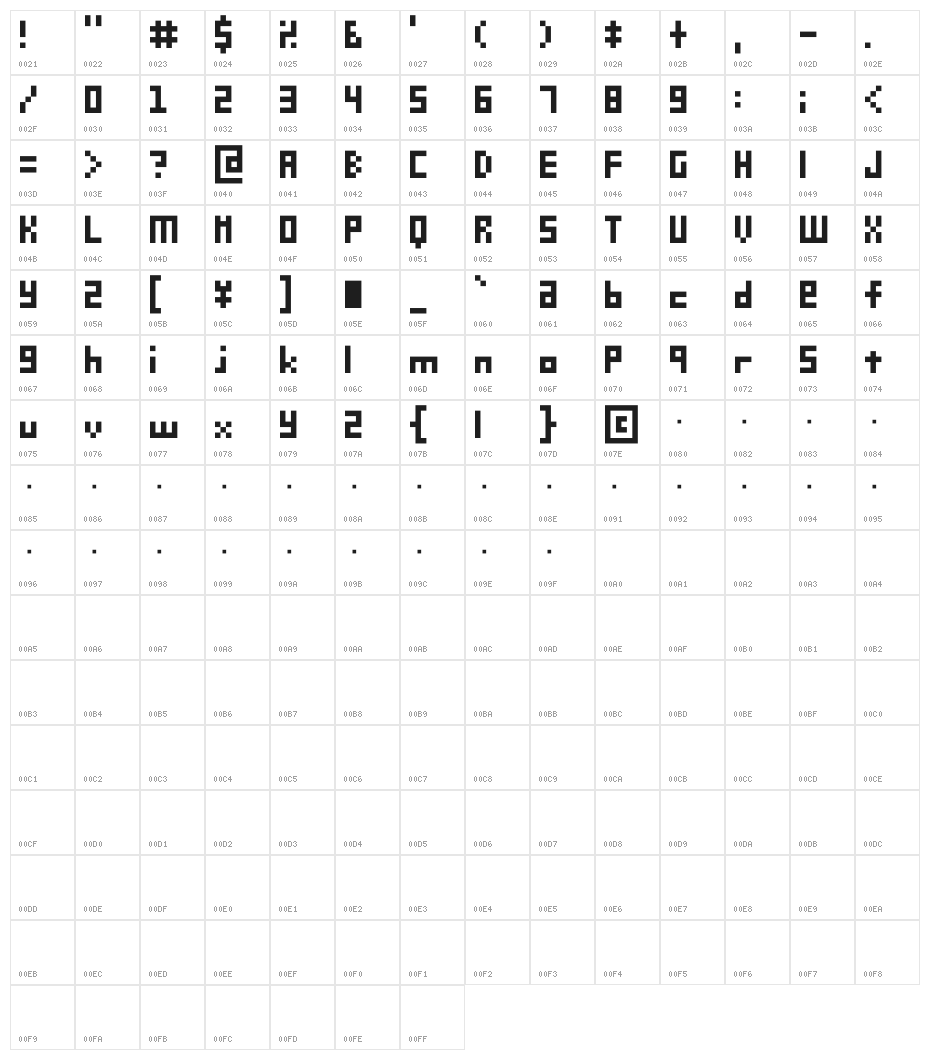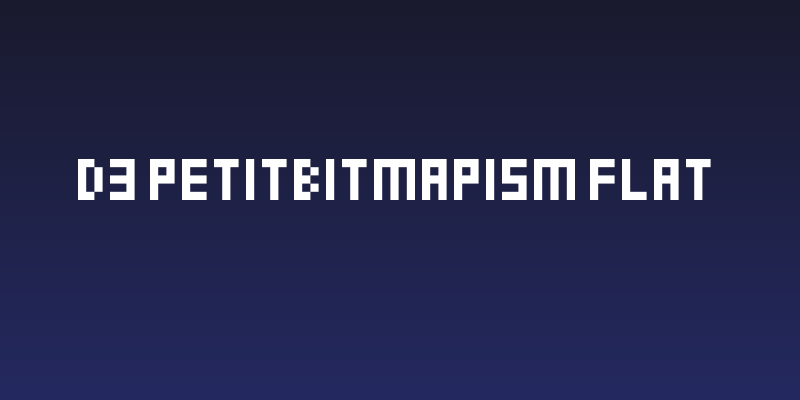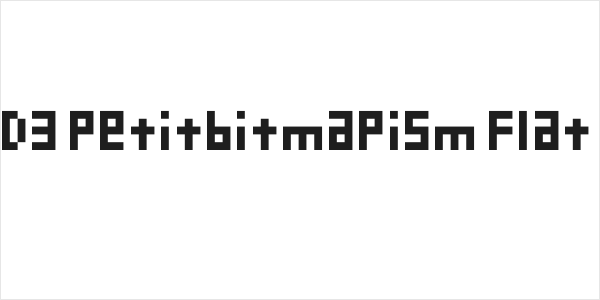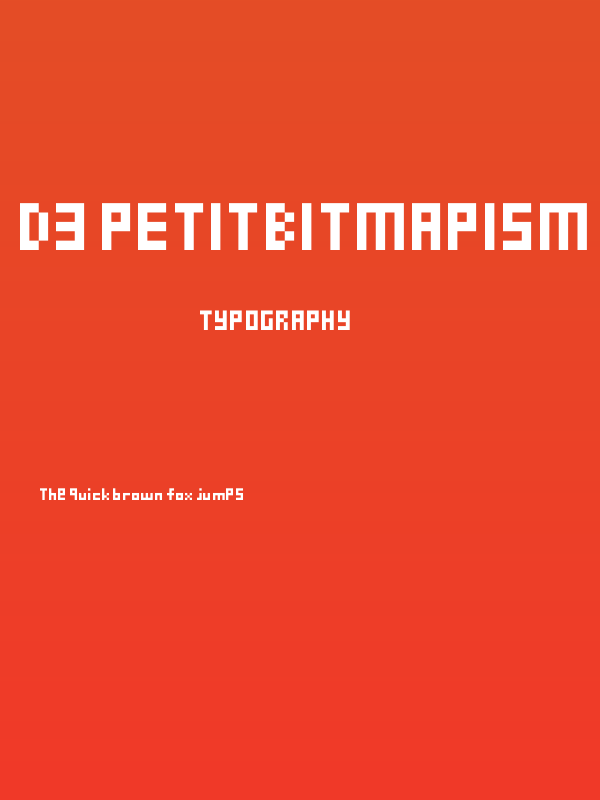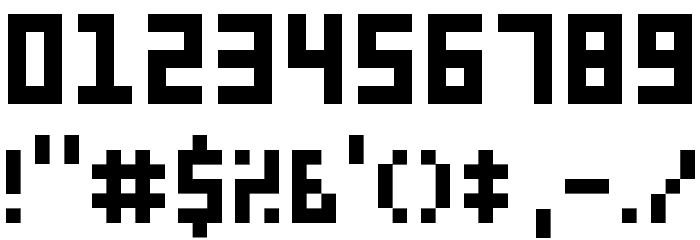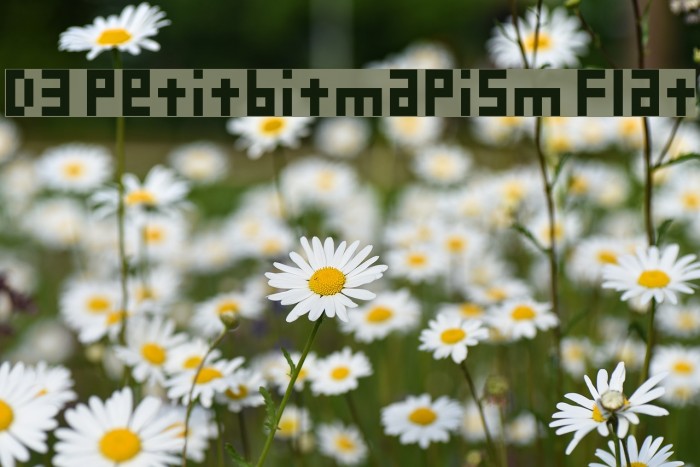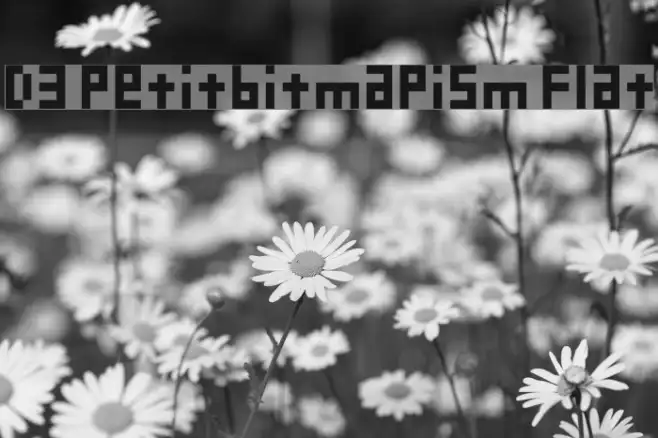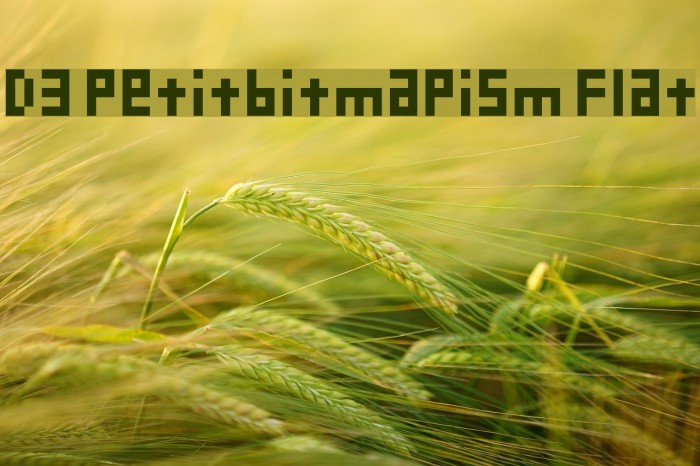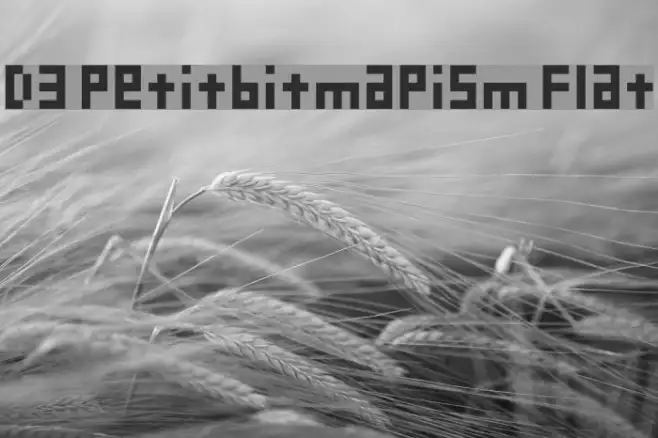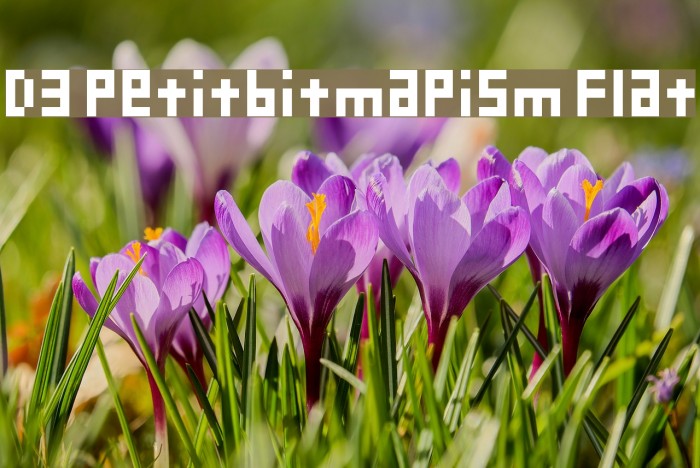
D3 Petitbitmapism Flat Font
D3 Petitbitmapism Flat Description
This font features a pixelated, blocky design reminiscent of early digital displays and video game graphics. Each character is composed of uniform square pixels, creating a retro, nostalgic feel. The uppercase and lowercase letters maintain a consistent height, contributing to a monospaced appearance. The numerals and special characters follow the same pixelated style, ensuring a cohesive look across all glyphs. This font's simplicity and geometric structure make it highly legible at various sizes, though it is particularly effective in larger displays where its unique style can be fully appreciated.
| Overall Style | Retro, Digital |
| Use Case | Headlines, Logos, Display text |
| Proposed Projects | Ideal for retro video games, digital art projects, tech-themed posters, or any design requiring a nostalgic digital aesthetic. |